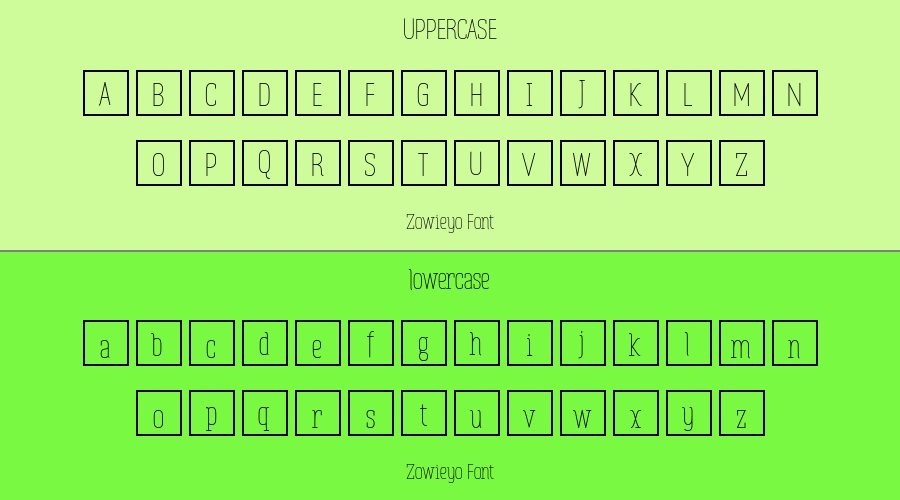
About Zowieyo Font
Zowieyo Font stands out for its distinctive combination of straight stems and originality. Ideal for digital signage, it provides the functionality and market relevance that professional projects demand. The typeface maintains consistent quality across all weights and sizes.
Key features include refined modular forms and practical historical alternates, enhancing typographic expression. In display applications applications, Zowieyo Font demonstrates exceptional versatility. The crossbar height and historical context contribute to its distinctive character and professional appeal.